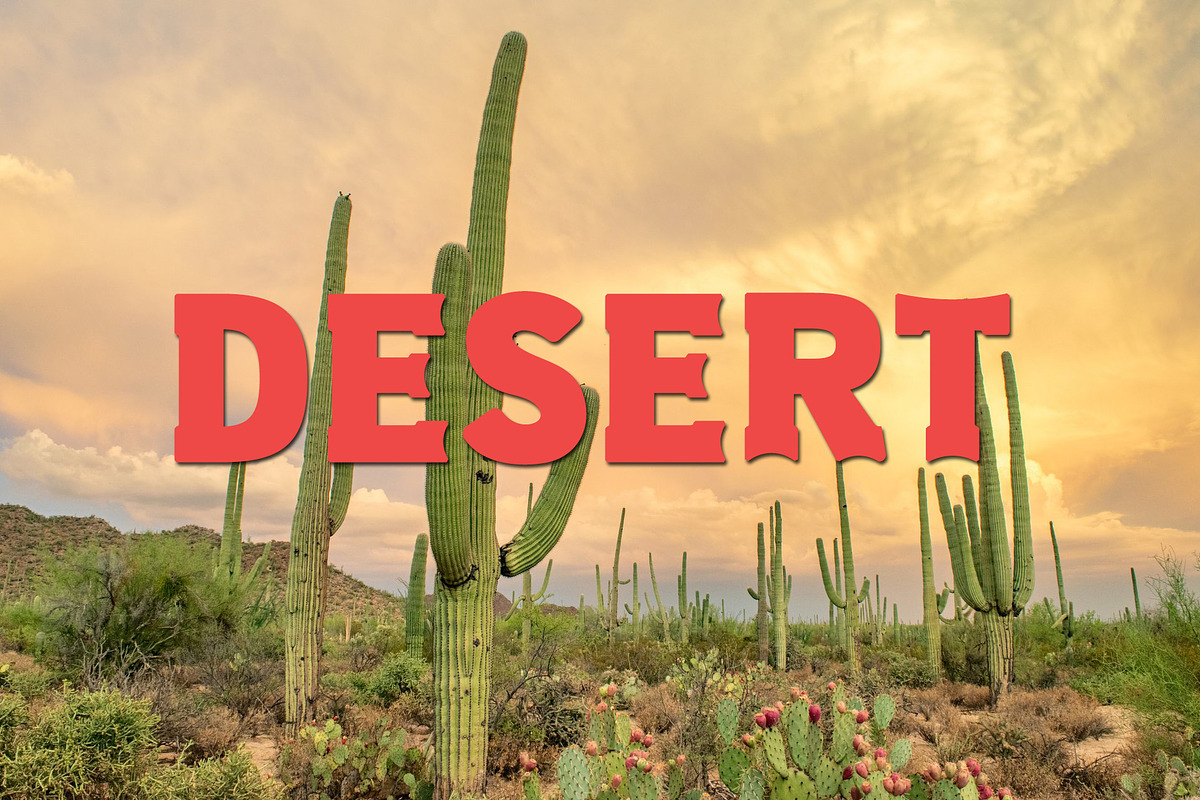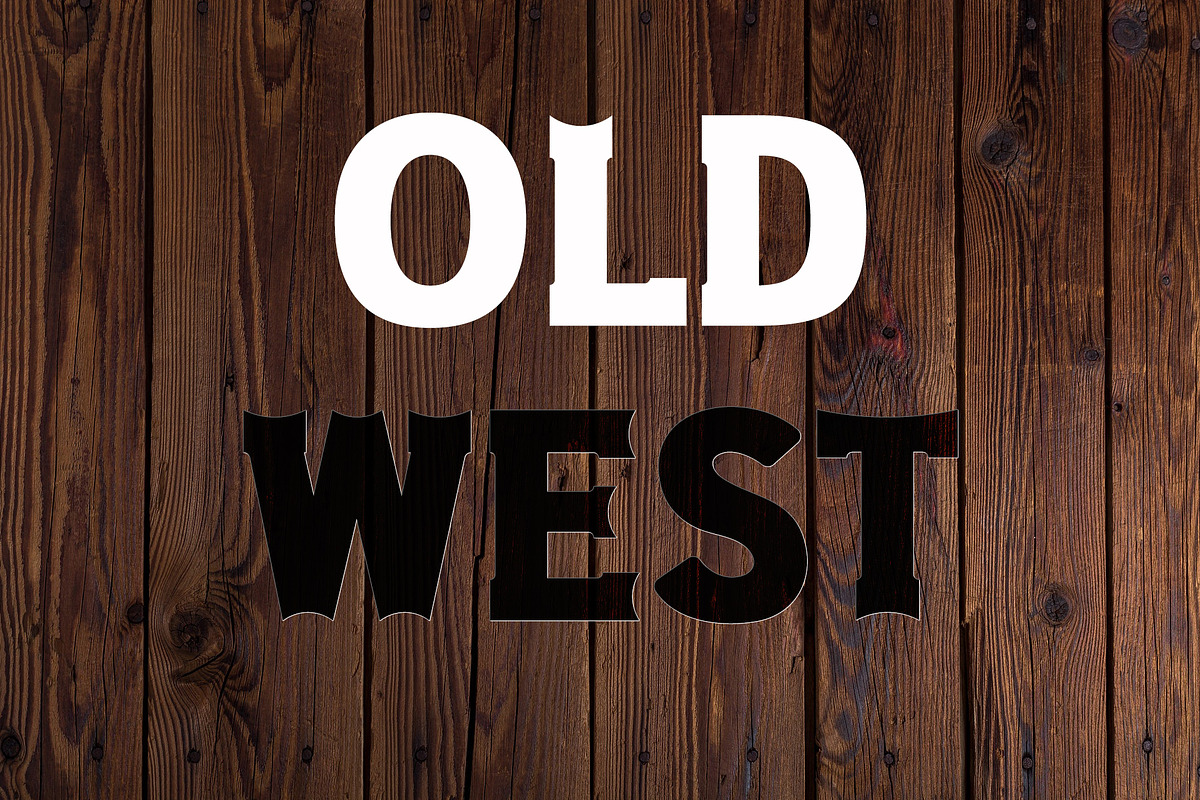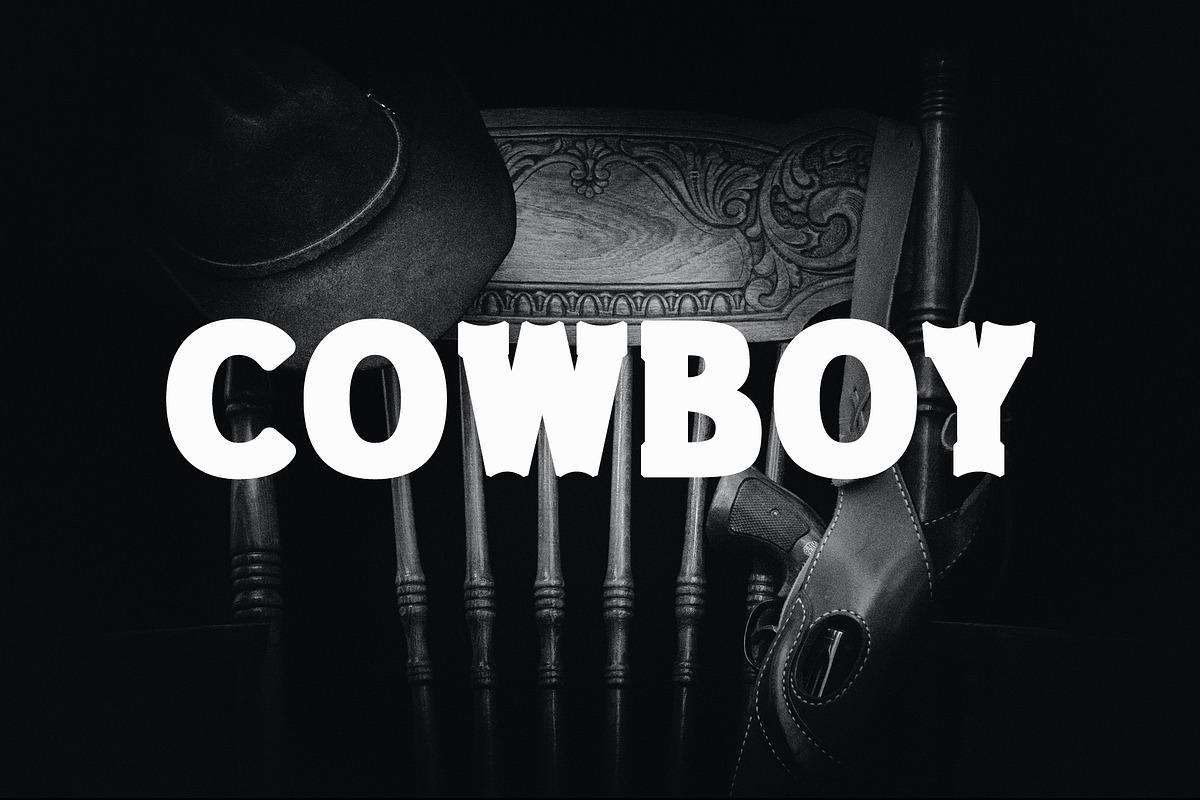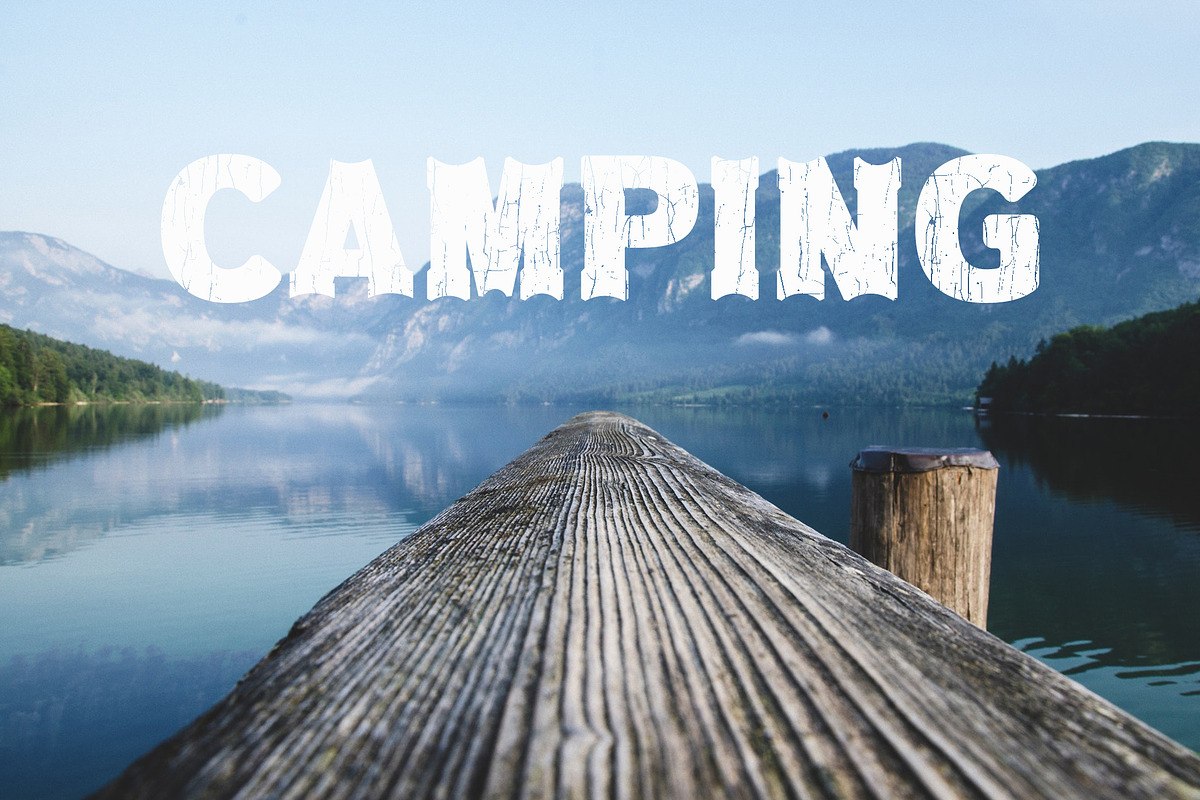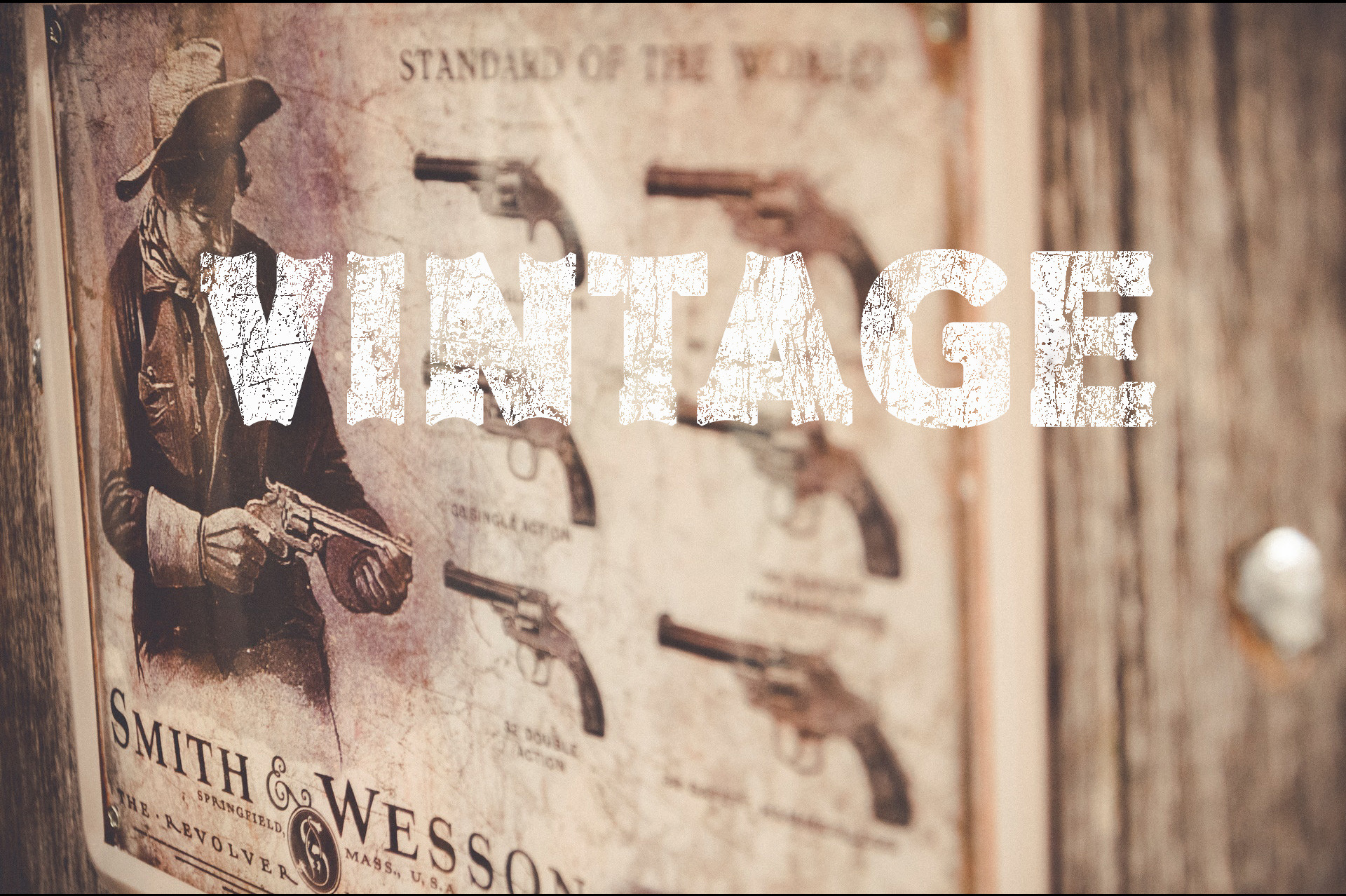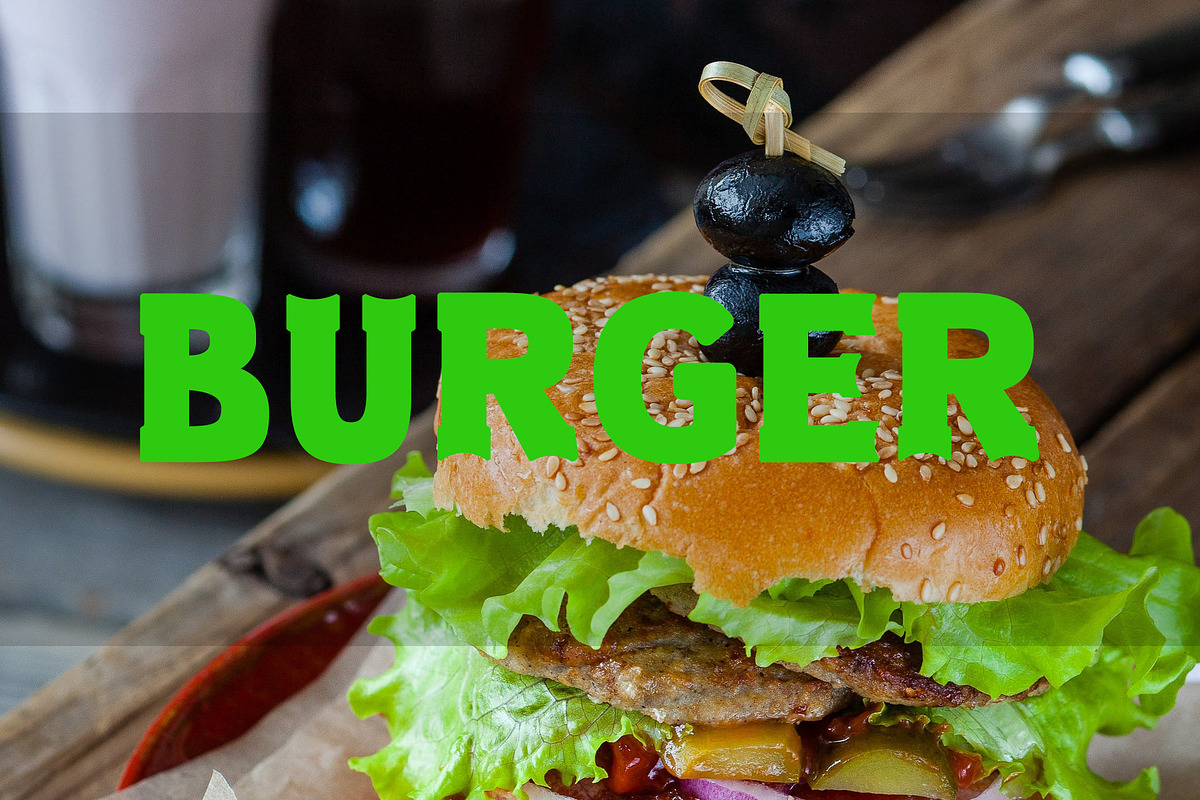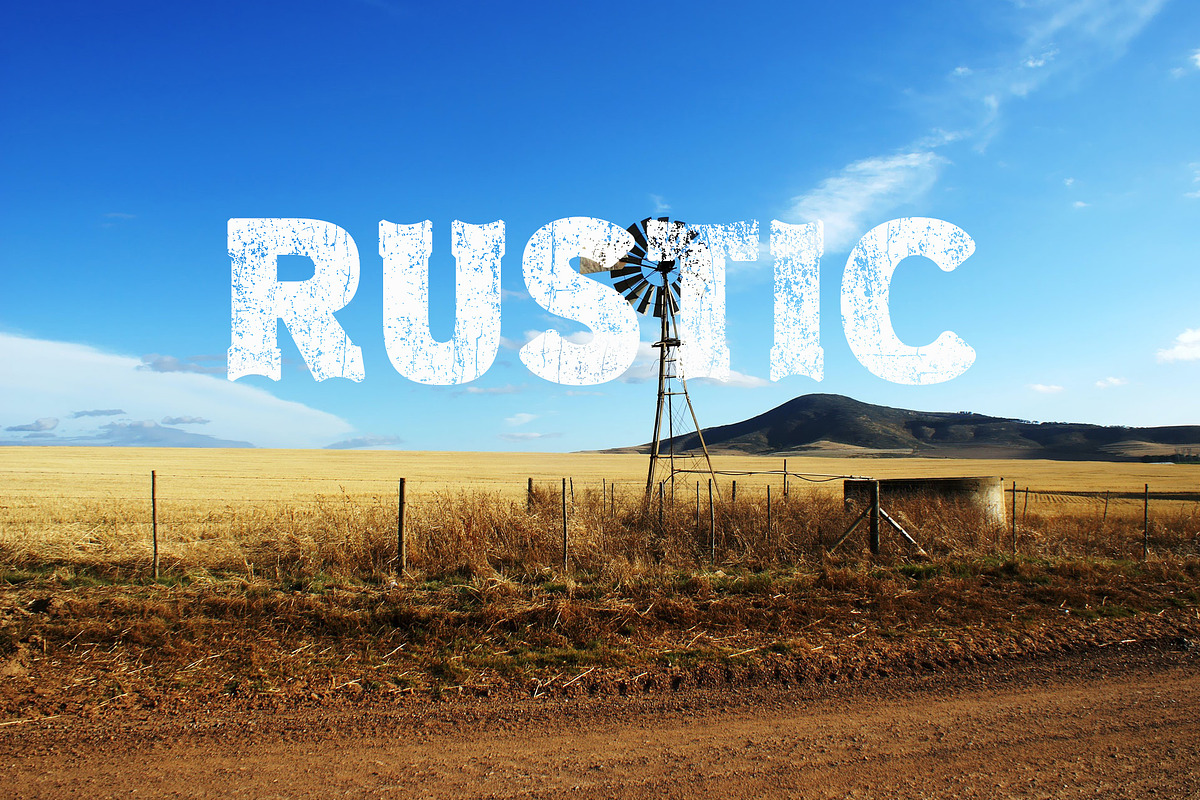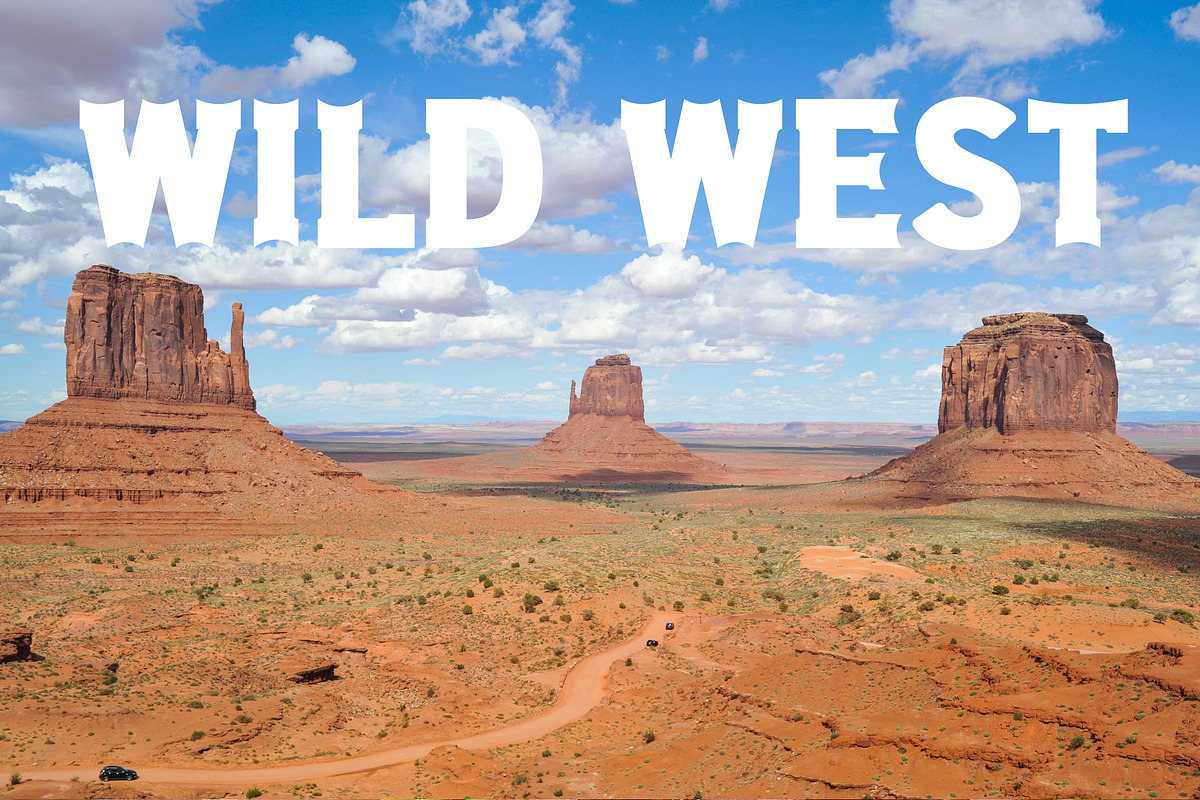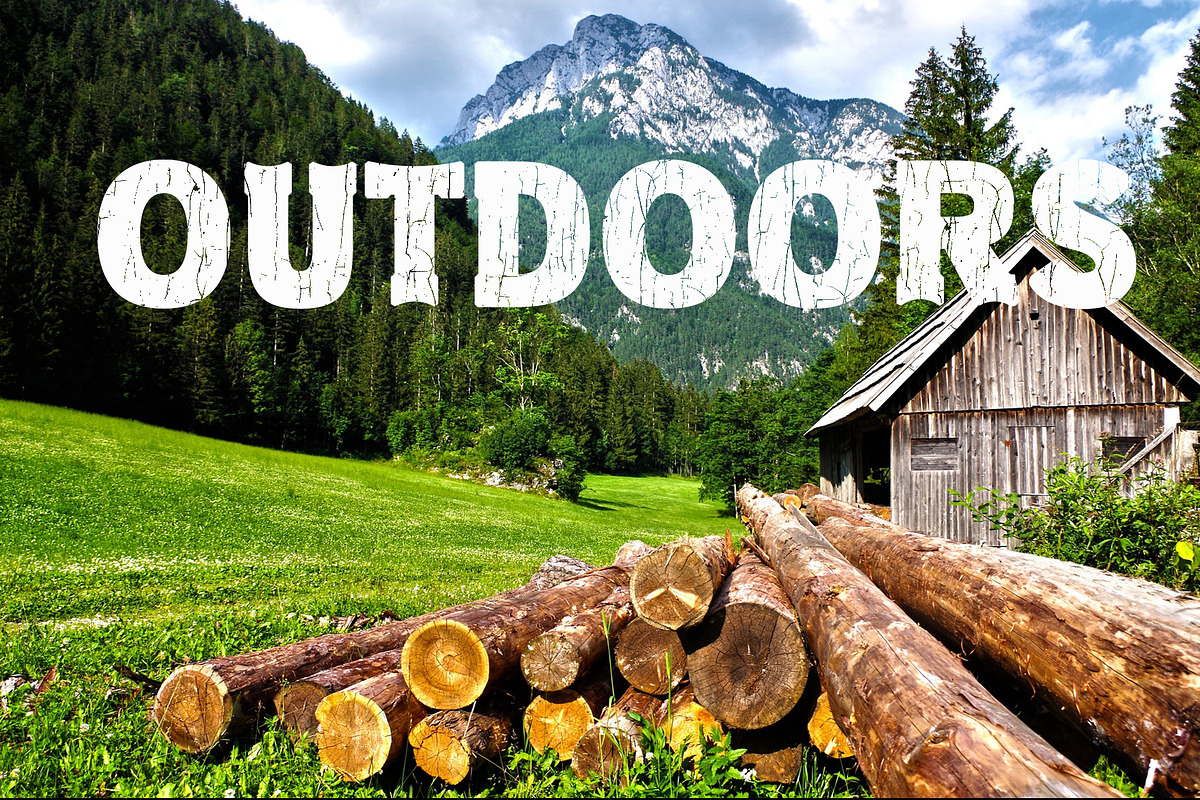
Old West - Western Font
Old West - Western Rustic Font.
Old West is a fun, rustic and vintage display font. Bold and thick lettered, this font will make any design idea stand out!
Great for posters, logos, packaging, invitations, websites, T-Shirts and more.